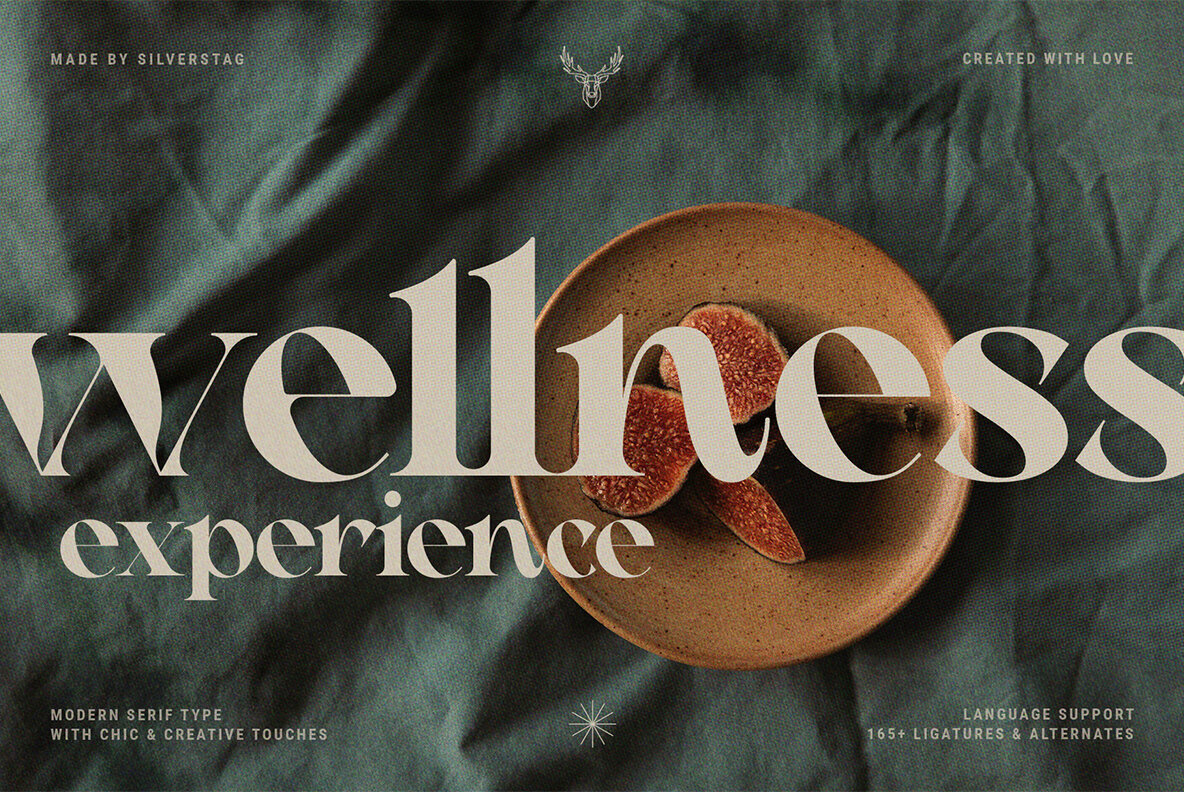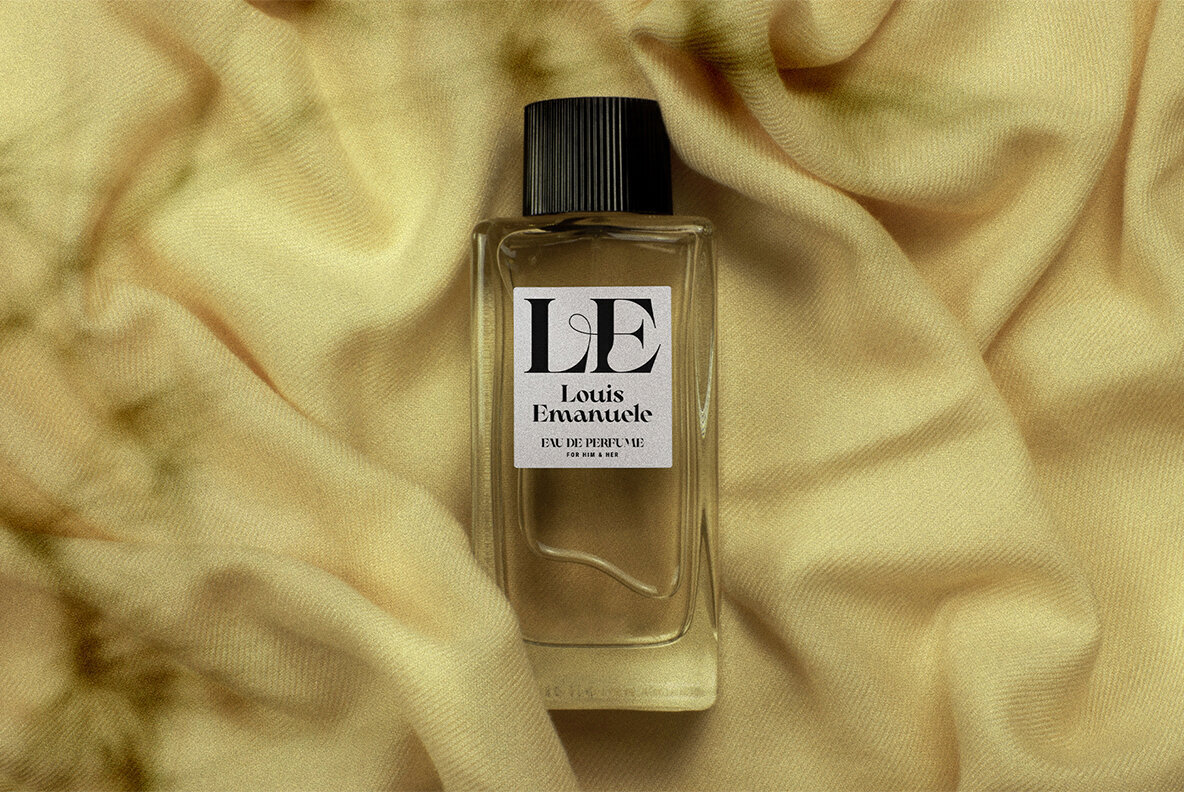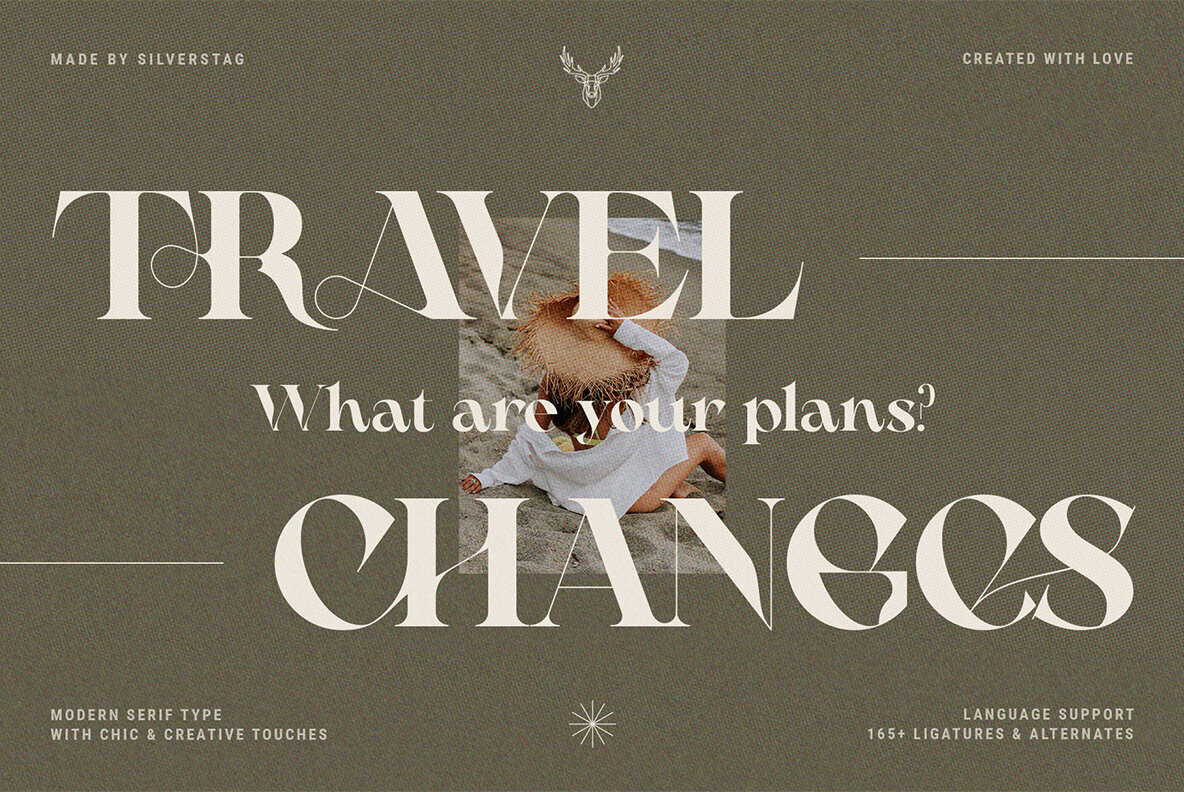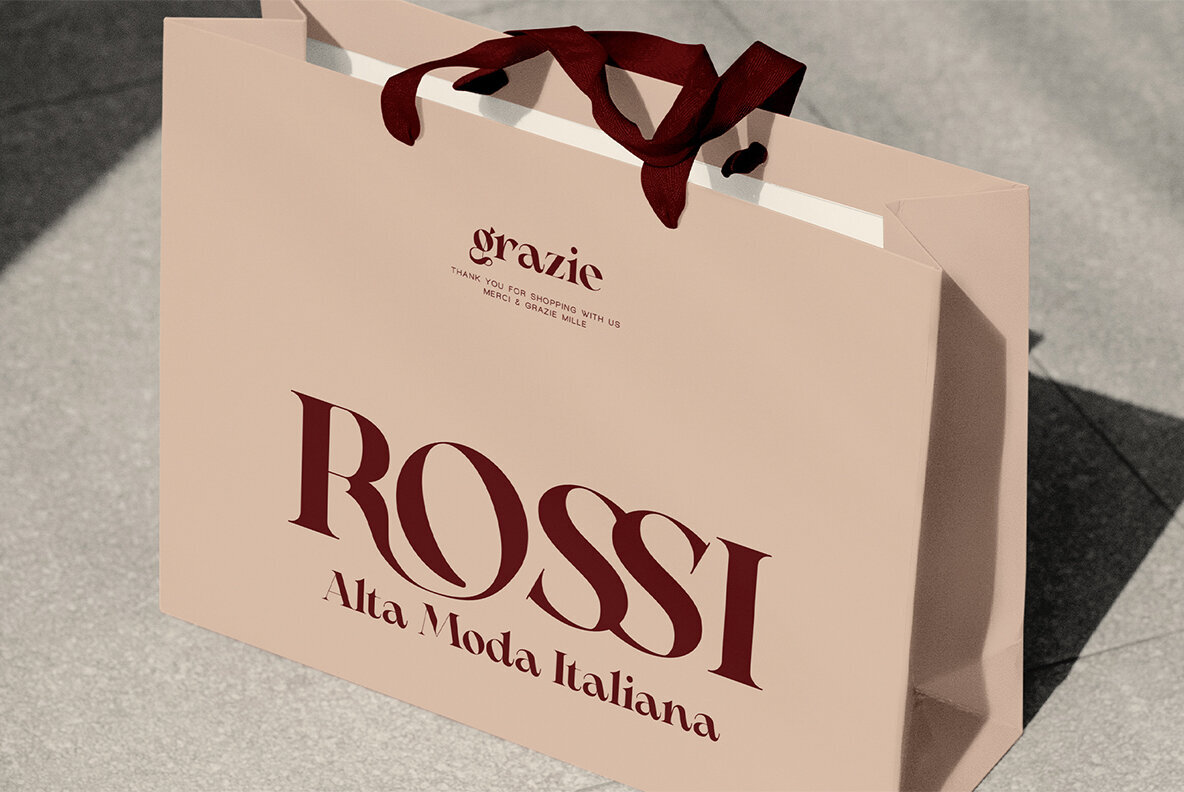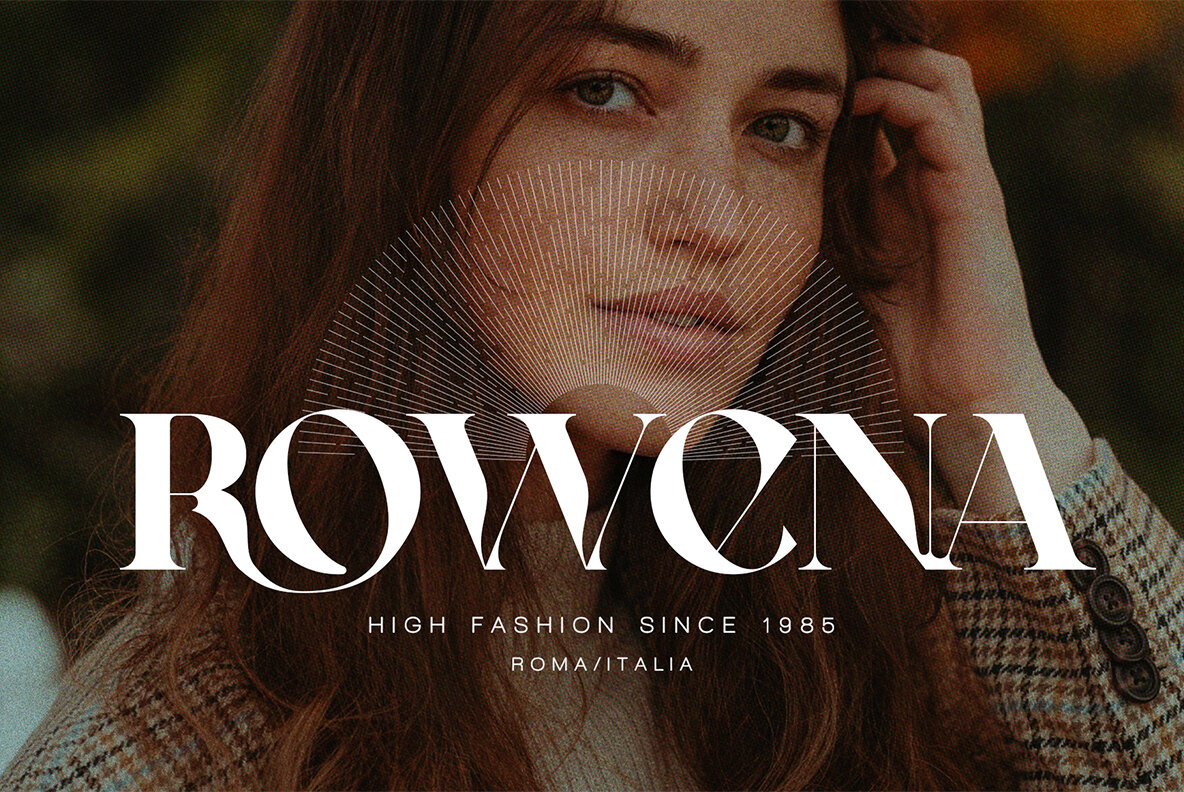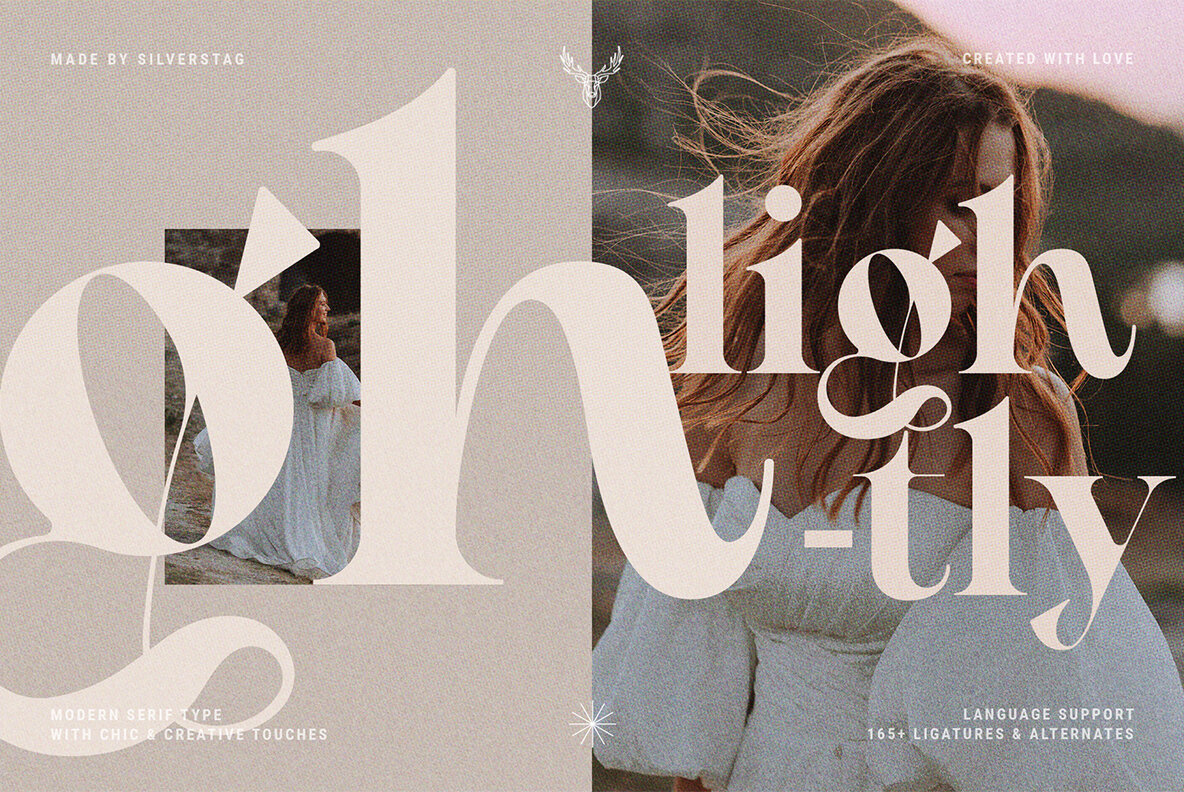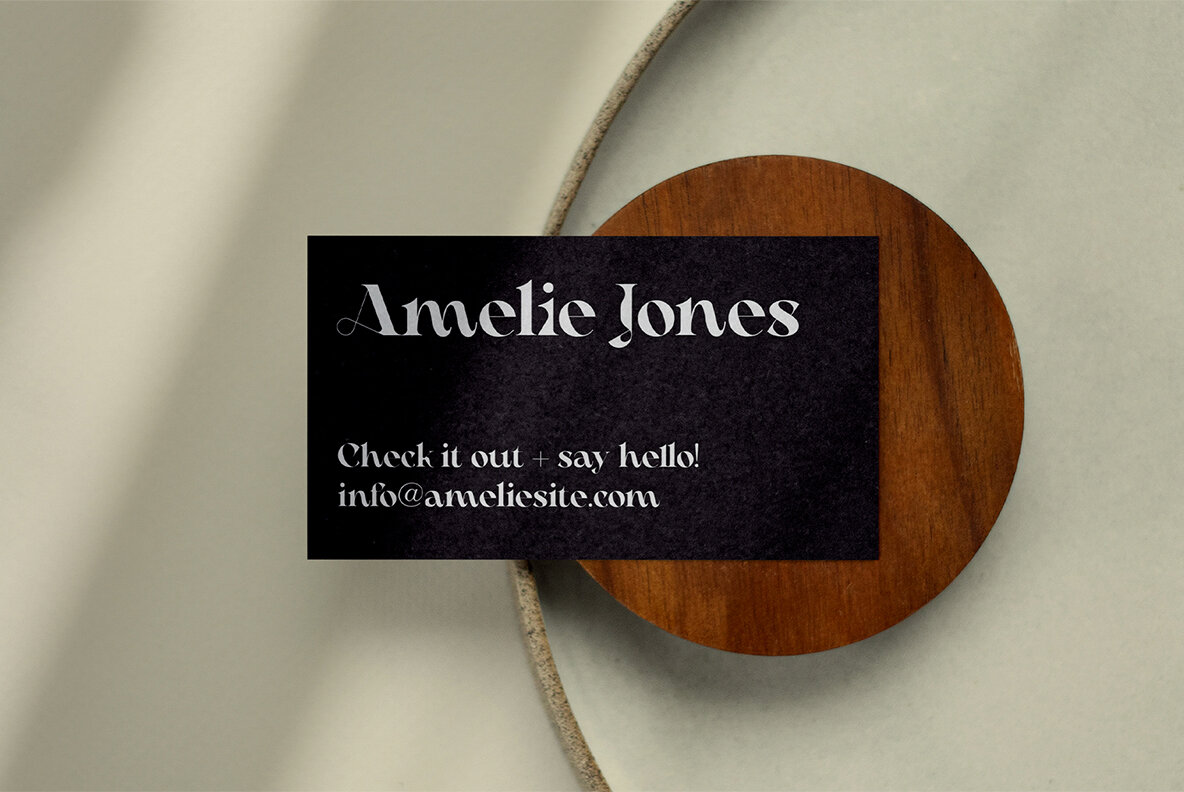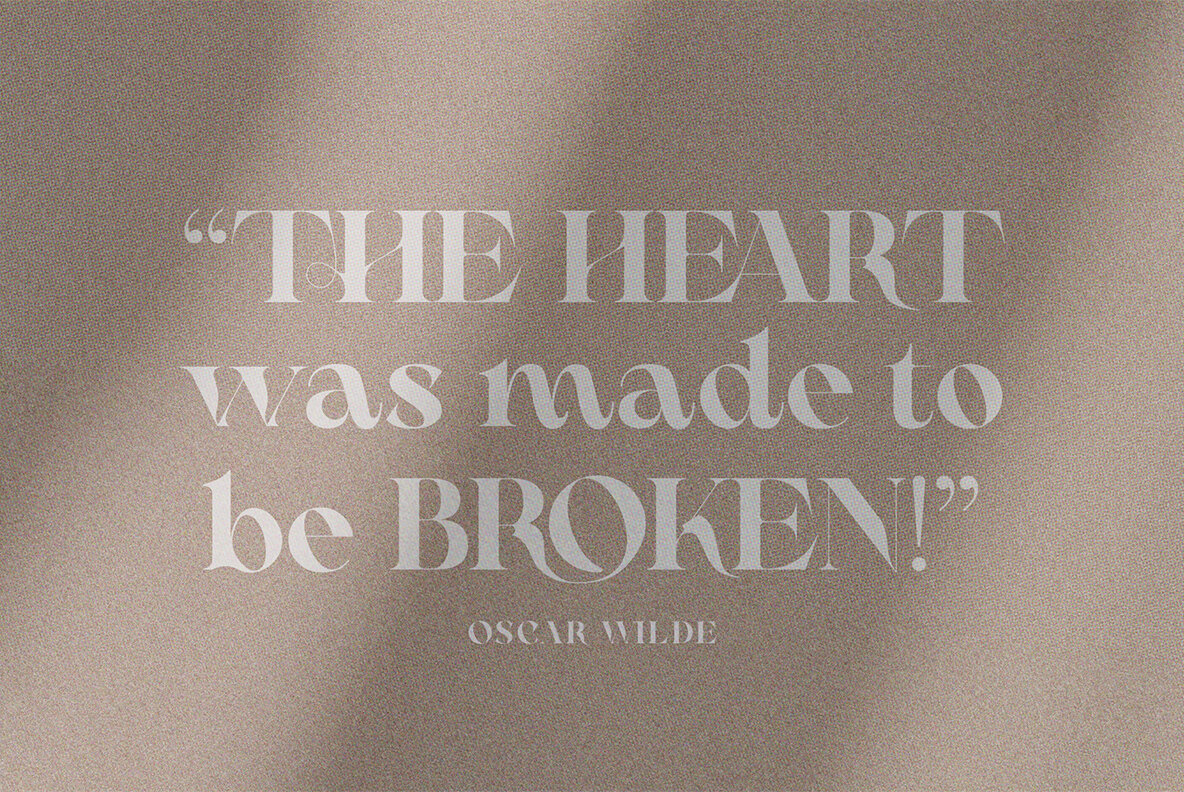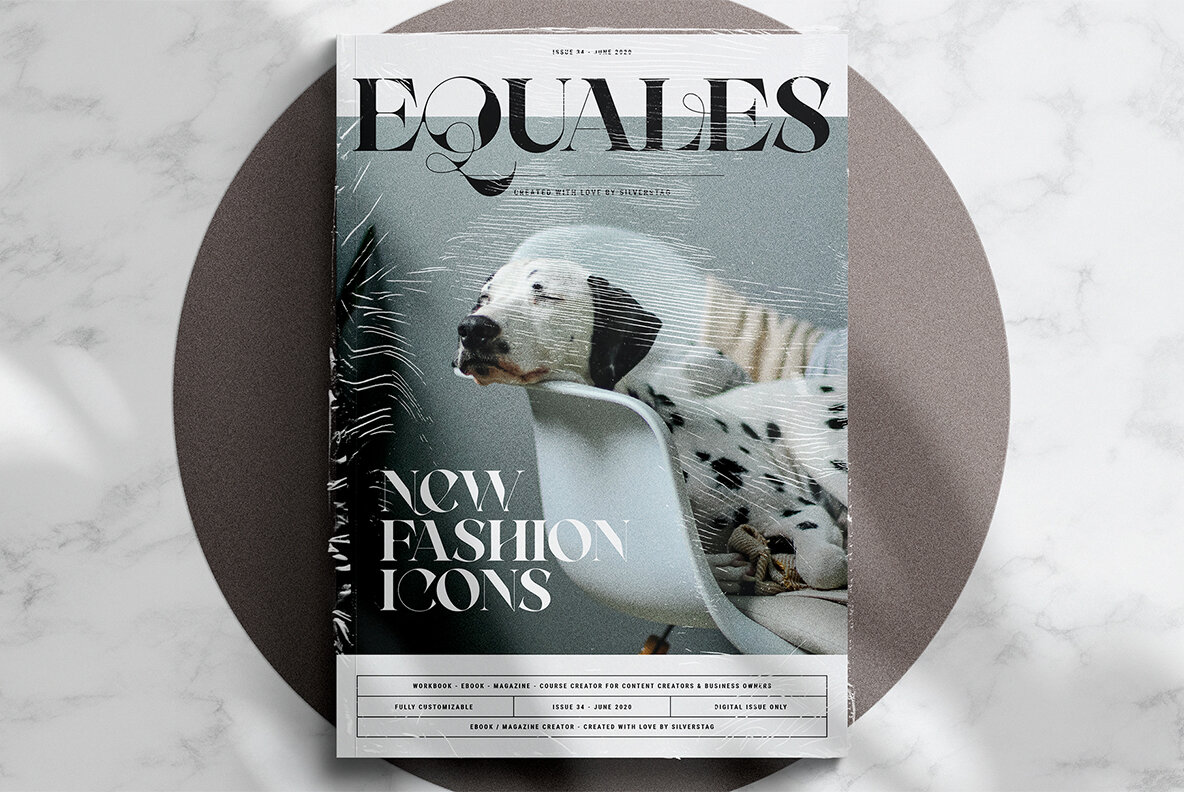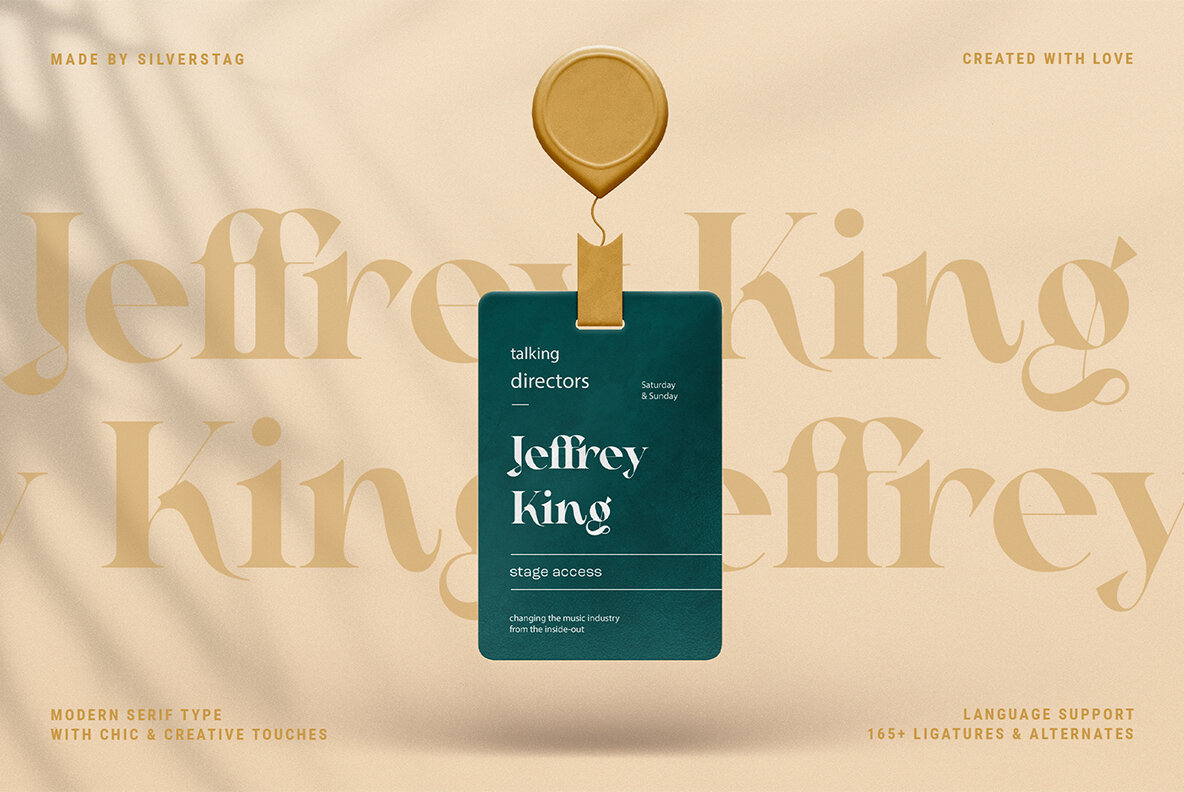
RATHER RISQUE Font
RATHER RISQUE
RATHER RISQUÉ is a brand new & creative contrast serif font, my take on a classical serif typeface, with over 165 unique ligatures and alternates for all uppercase and lowercase letters. This serif font was inspired by fashion editorial fonts, I wanted it to be bold but with a contrast thin touches, modern ligatures and unique features.
RATHER RISQUÉ serif font comes with over 165 ligatures and alternates, full language support and it will be perfect for any kind of design work. Whether you're making a poster, logo design, full branding or a website, you can use it and get an amazingly creative result. I invite you to check out the preview images, and I hope you will be immersed in my vision for this creative typeface that, I am sure, will work for all kinds of interesting projects you might be working on this year.
• 165+ Creative Alternates & Ligatures